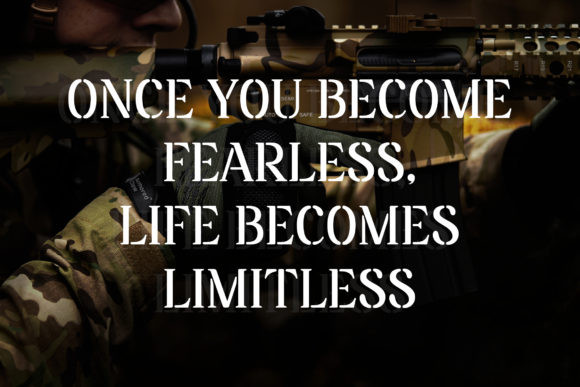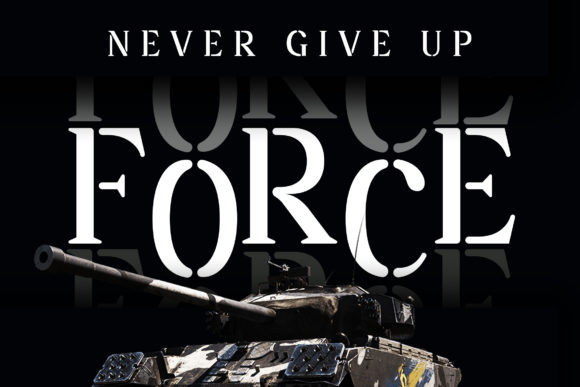
Portway Font
Portway is a bold serif font. It celebrates abstract shapes in all their eclectic beauty. This font will look truly outstanding in a wide range of contexts.